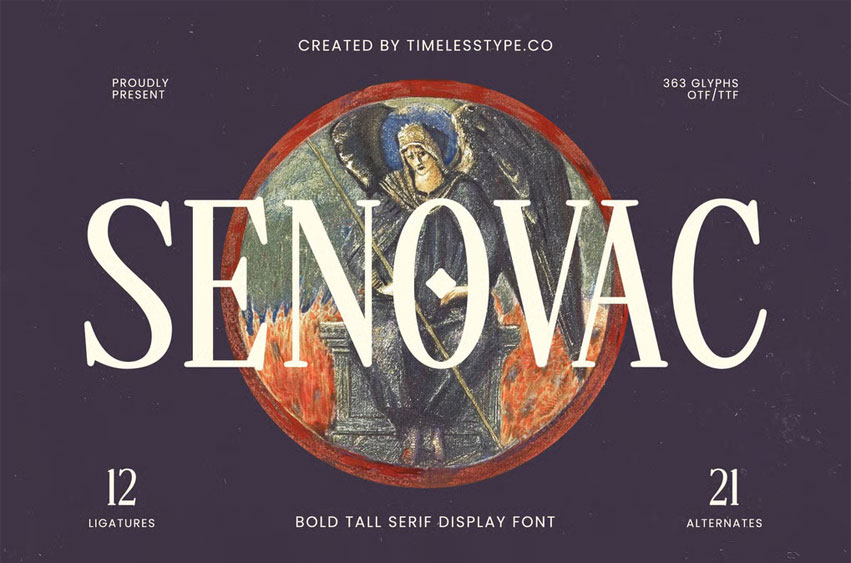
Senovac Font is a bold tall serif display font inspired by classical proportions, medieval artistry, and timeless editorial elegance. With strong vertical forms, sharp serifs, and refined contrast, this font delivers an authoritative yet sophisticated presence—perfect for historical themes, premium branding, book covers, posters, museum collections, and cinematic visual storytelling.
Featuring 12 ligatures and 21 stylistic alternates, SENOVAC gives designers the flexibility to craft unique titles and expressive layouts with an elevated artistic style. The font blends tradition with modern design refinement, making it ideal for luxury projects, dramatic headline typography, and impactful editorial compositions.